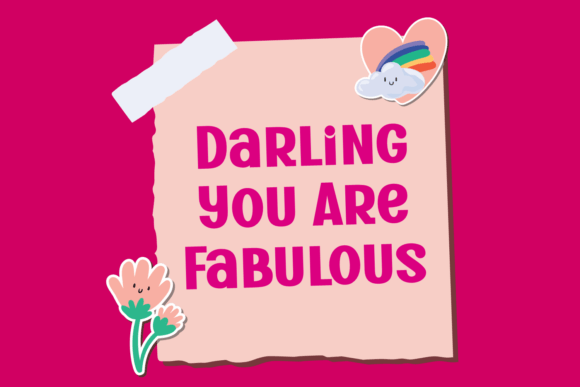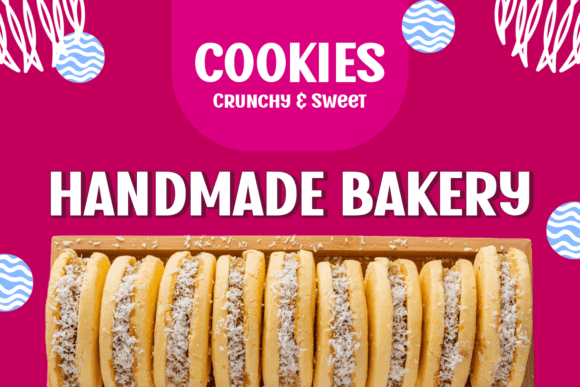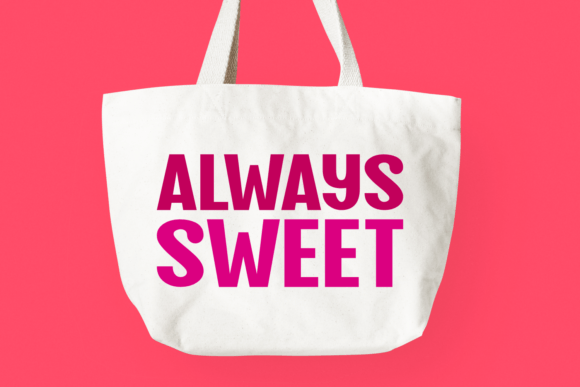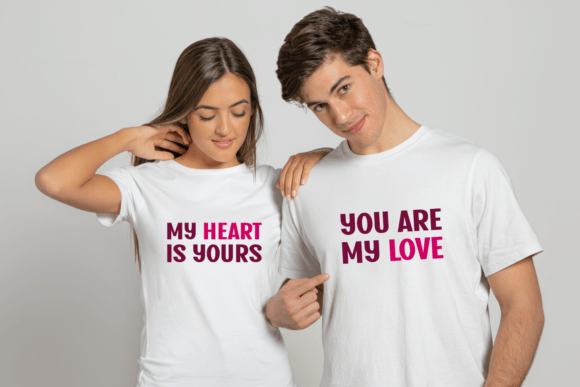
Introducing Alright Darling Font: The Ultimate Display Font for Creative Expression
Are you tired of using mundane fonts that fail to capture the essence of your brand or creative project? Look no further than Alright Darling Font, a standout display font that exudes charm, boldness, and a dash of playfulness. This unique font is designed to reignite your creativity and help you make a lasting impression on your audience.
Unleash Your Creativity with Alright Darling Font
Alright Darling Font is perfect for designers, crafters, and marketers looking to add a touch of personality to their work. Its bold, joyful, and fancy qualities make it an ideal choice for a wide range of applications, from product packaging and tote bags to promotional cards, advertising, and poster design. Whether you’re looking to create eye-catching headlines, expressive quotes, or distinctive labels, this font is sure to deliver.
A Font that Captures the Essence of School Spirit
One of the standout features of Alright Darling Font is its youthful appeal, making it perfect for projects that require a touch of school spirit. Its strong, striking design is sure to catch the eye and leave a lasting impression on your audience. Whether you’re creating promotional materials for a school event or designing a logo for a youth-oriented brand, this font is an excellent choice.
Perfect for Crafting Logotypes and Branding
Alright Darling Font is also splendid for crafting logotypes and instilling branding with personality. Its unique design makes it instantly recognizable in magazines, and its bold, cheerful qualities ensure that your brand stands out from the crowd. Whether you’re looking to create a distinctive brand identity or simply want to add a touch of personality to your marketing materials, this font is an excellent choice.
Multilingual Support and Versatility
Another advantage of Alright Darling Font is its versatility. This font is perfect for a wide range of projects, from banners and posters to multilingual projects. Its clean, pristine design ensures that it remains legible even in complex layouts, making it an excellent choice for designers and crafters working on international projects.
Why Choose Alright Darling Font?
So why choose Alright Darling Font over other display fonts on the market? Here are just a few reasons:
- Unique Design: Alright Darling Font boasts a one-of-a-kind design that is sure to capture the attention of your audience.
- Bold and Cheerful: This font is perfect for designers and crafters looking to add a touch of personality to their work.
- Kid-Friendly: Alright Darling Font is an excellent choice for projects aimed at a younger audience, thanks to its playful and youthful appeal.
- Multilingual Support: This font is perfect for international projects, thanks to its clean and legible design.
Tips for Using Alright Darling Font
Here are a few tips for getting the most out of Alright Darling Font:
| Font Name | Alright Darling Font |
| Author | Eightde |
In conclusion, Alright Darling Font is a standout display font that is sure to capture the attention of your audience. Its unique design, bold and cheerful qualities, and versatility make it an excellent choice for a wide range of projects, from product packaging and promotional materials to branding and multilingual projects. Whether you’re a designer, crafter, or marketer, this font is sure to help you make a lasting impression and add a touch of personality to your work.